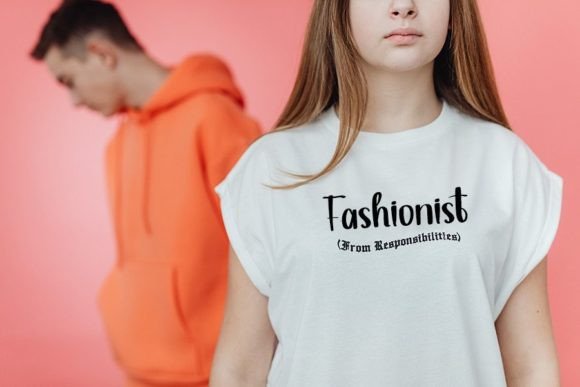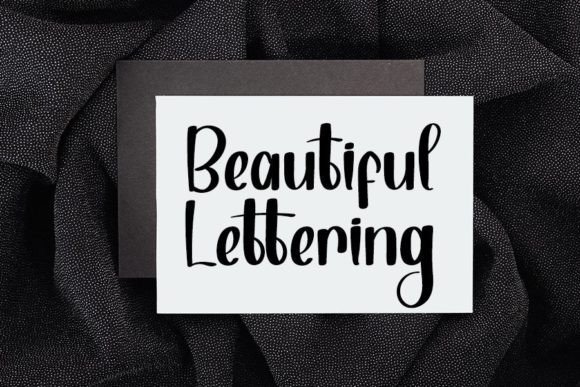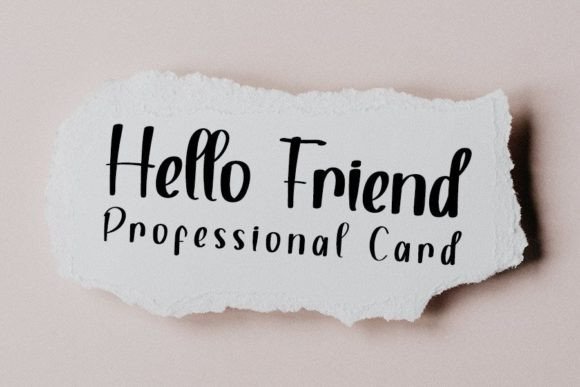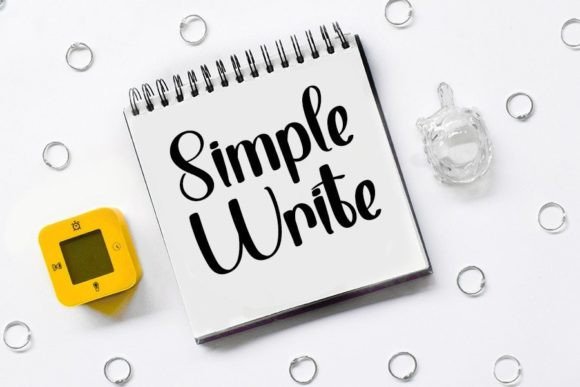
Creative Mandala Font
“Creative Mandala” is a captivating and elegant handwritten font that effortlessly combines neatness with beauty. Its distinct and timeless style makes it a perfect choice for a wide array of creative projects. Whether you’re working on invitations, posters, branding materials, or any other design, “Creative Mandala” adds an exquisite touch of sophistication to your work.
The font’s clean and well-defined letterforms exhibit a sense of precision and clarity, enhancing readability and visual appeal. Its elegant touch exudes refinement and grace, making it ideal for a variety of applications. “Creative Mandala” captures attention with its distinct and stylish appearance, transforming your projects into visually stunning and memorable creations.
The versatility of “Creative Mandala” allows it to adapt seamlessly to different design contexts. Whether used for formal invitations, artistic endeavors, or modern branding, this font elevates the overall aesthetic of your content. Its timeless style ensures that your designs possess a classic and enduring quality, making them suitable for a wide range of creative ventures.
Embrace the unique charm of “Creative Mandala” and let it inspire your creative endeavors. Its elegant and distinct handwritten style serves as a canvas for your imagination, allowing you to craft spectacular designs that leave a lasting impression. Fall in love with its neat and beautiful qualities, and watch as it transforms your ideas into visually captivating and exquisite masterpieces. With “Creative Mandala,” you have the ideal tool to bring your creative visions to life, creating designs that resonate with elegance and sophistication.